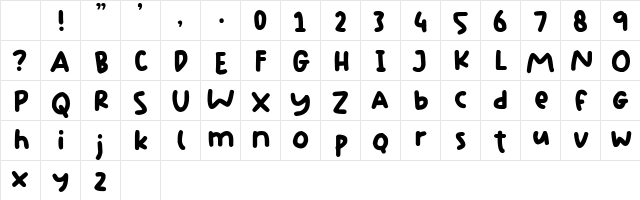
Complete Standing Ovation Regular glyph index. Displaying only characters natively supported by Standing Ovation Regular font.
Standing Ovation is a composed and adaptable typeface that performs quietly and consistently across a wide range of design contexts.